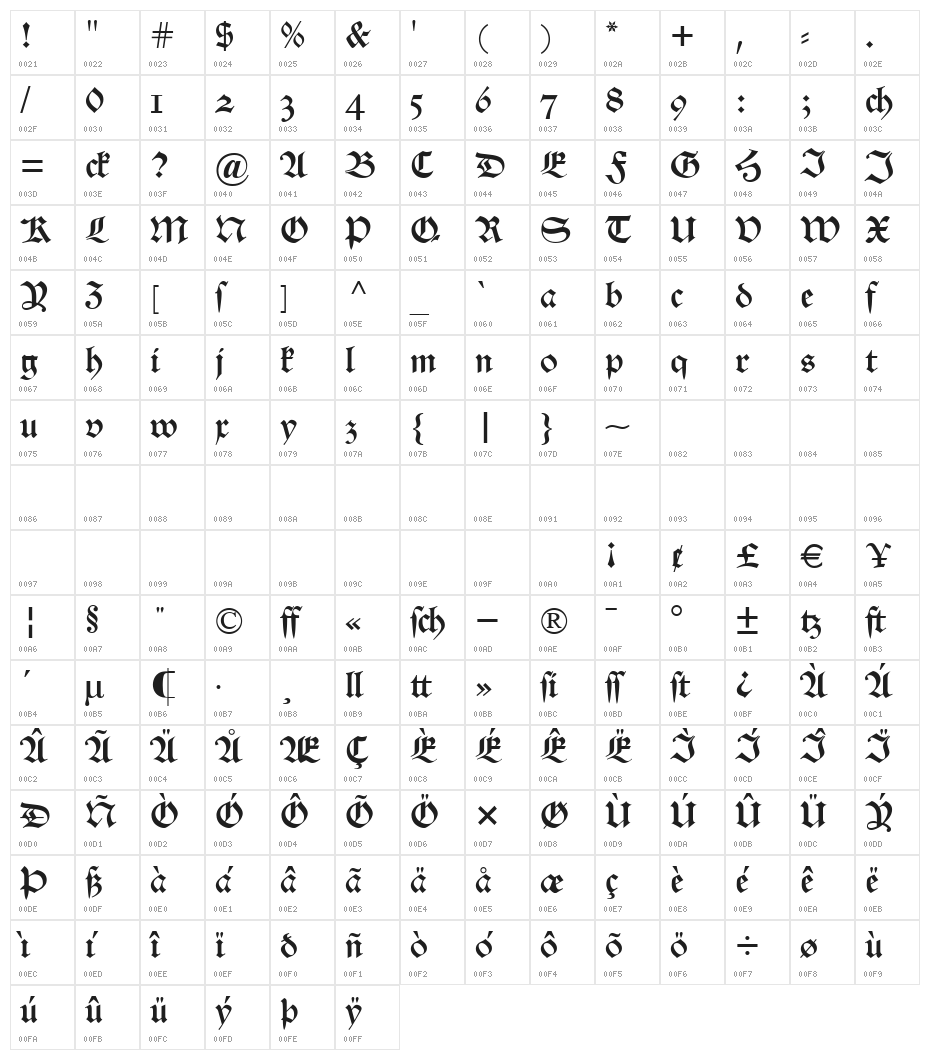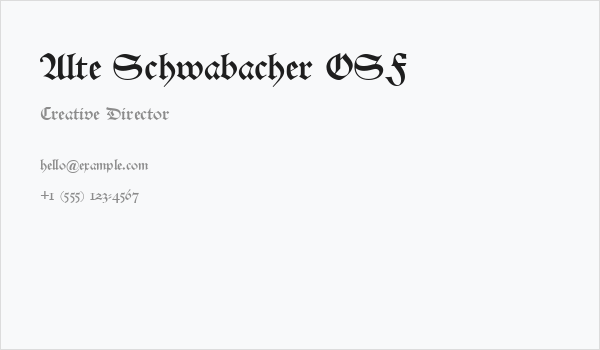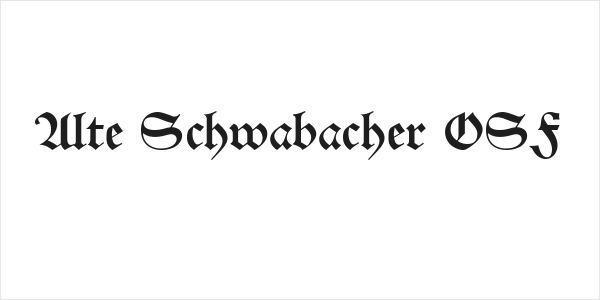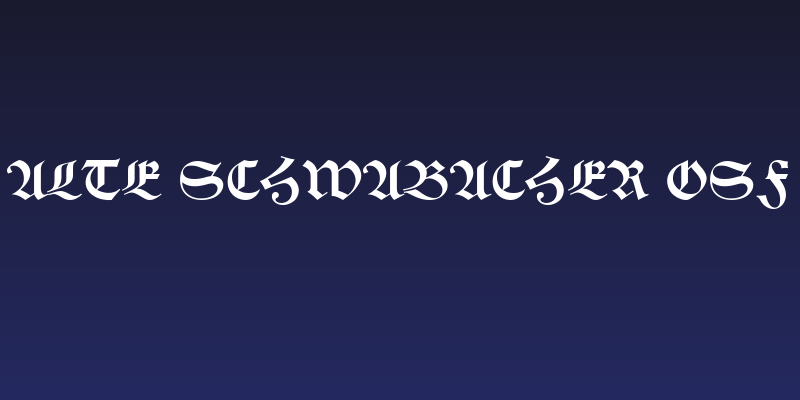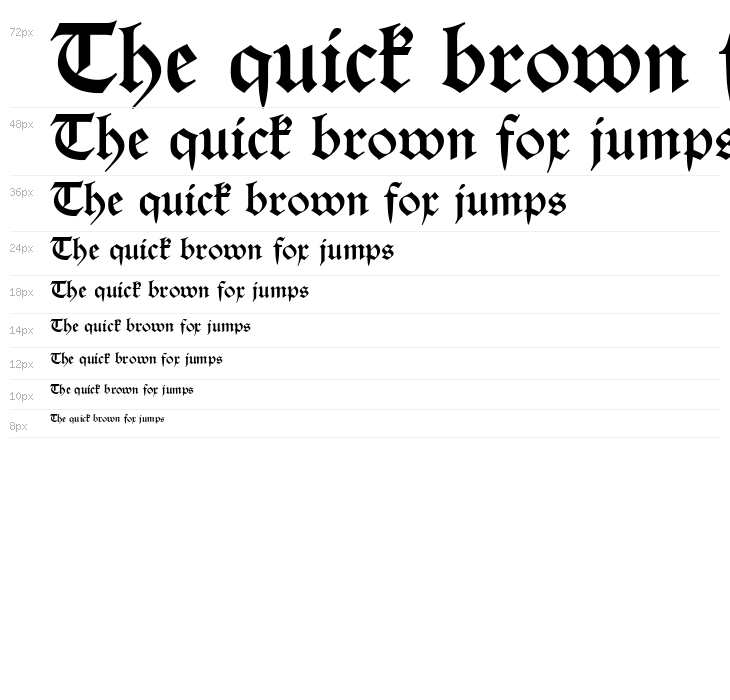
Alte Schwabacher OSF Font
Alte Schwabacher OSF Description
This font exhibits a traditional blackletter style, characterized by its intricate and angular letterforms. The uppercase letters are ornate with sharp edges and dramatic curves, while the lowercase letters maintain a consistent flow with a slightly more rounded appearance. The numerals are bold and distinct, following the same angular design as the letters. Special characters are crafted with the same attention to detail, enhancing the font's overall medieval aesthetic. This font is reminiscent of historical scripts used in manuscripts and early printed books, offering a sense of antiquity and elegance.
| Proposed Projects | Ideal for historical documents, certificates, book covers, or any project requiring a classic, medieval touch. |